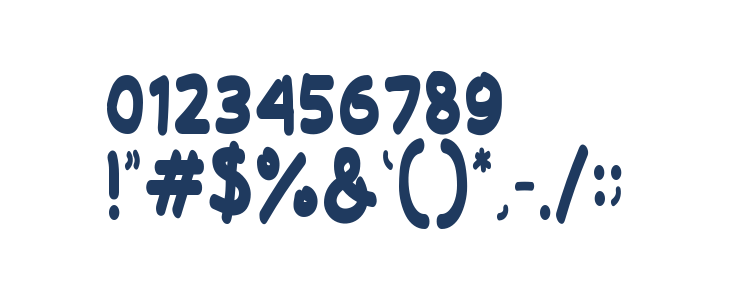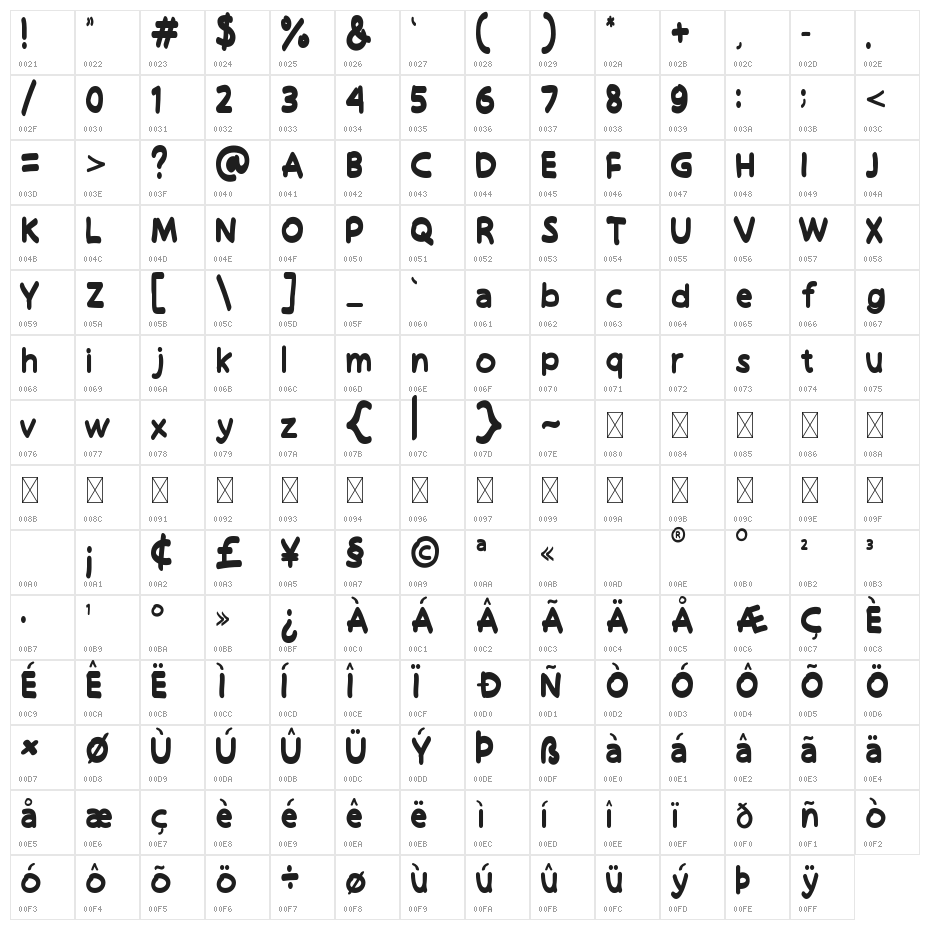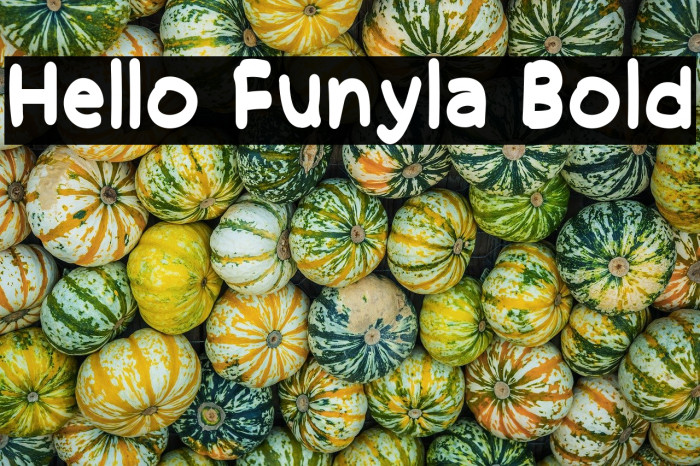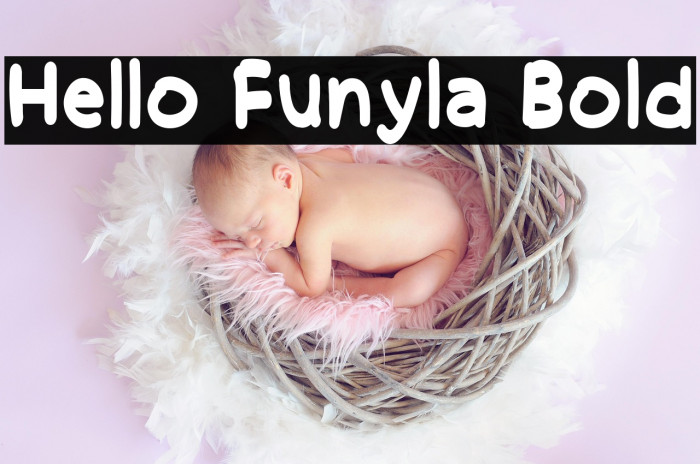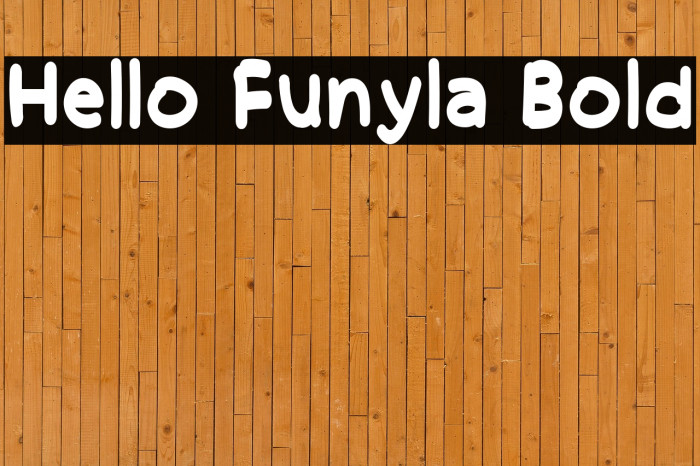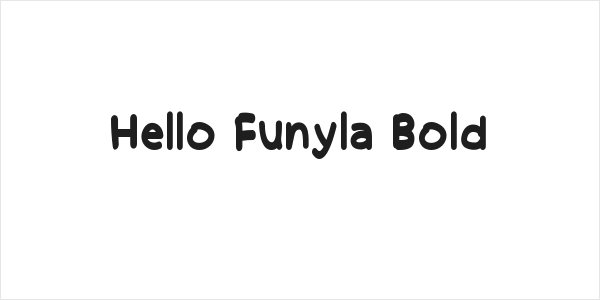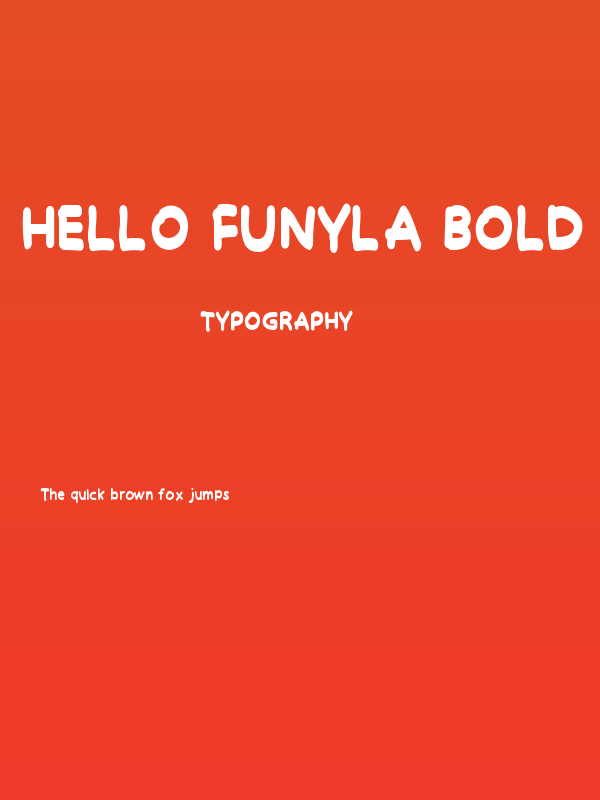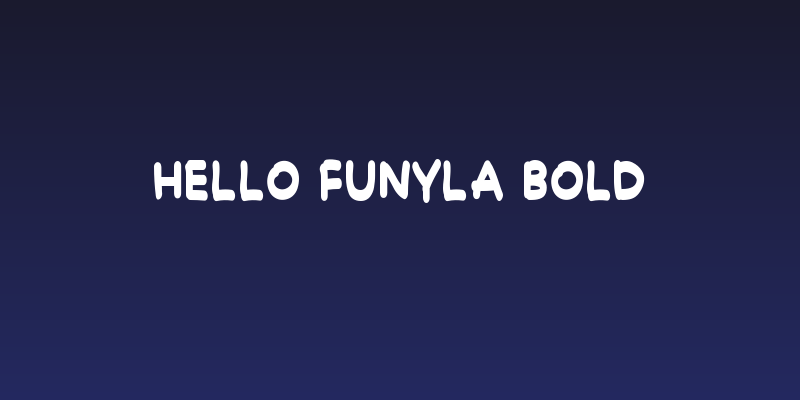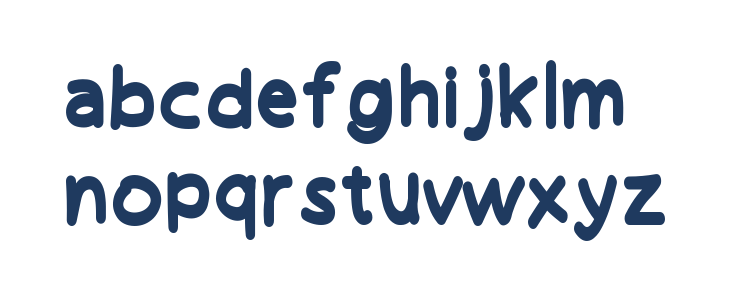
Hello Funyla Bold Font
Hello Funyla Bold Description
This playful and bold font features rounded, thick strokes that give it a friendly and approachable appearance. The characters are slightly irregular, adding a whimsical touch that makes it stand out. The uppercase and lowercase letters maintain a consistent style, with a smooth flow and rounded edges. The numbers and special characters are equally bold and maintain the same playful aesthetic, making them easily readable and visually appealing. This font's unique style is perfect for projects that require a fun and informal tone.
| Proposed Projects | Ideal for children's books, playful branding, casual invitations, and fun social media graphics. |